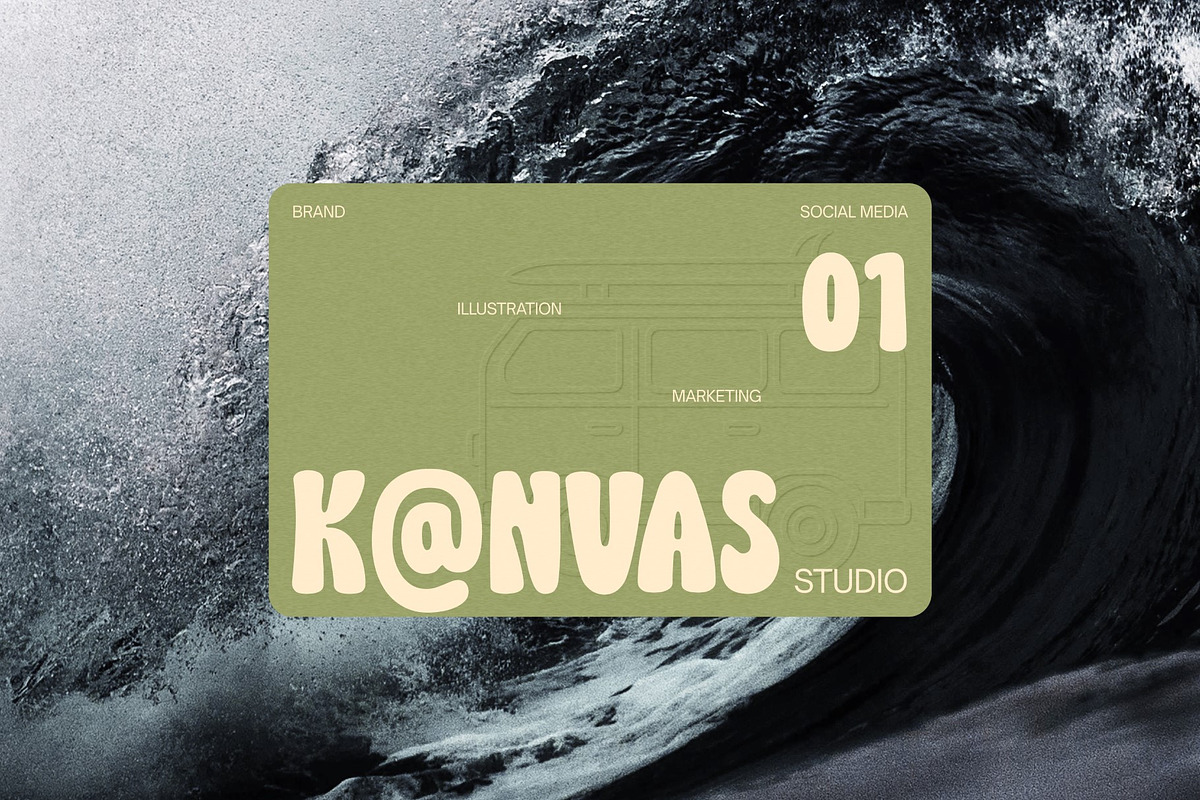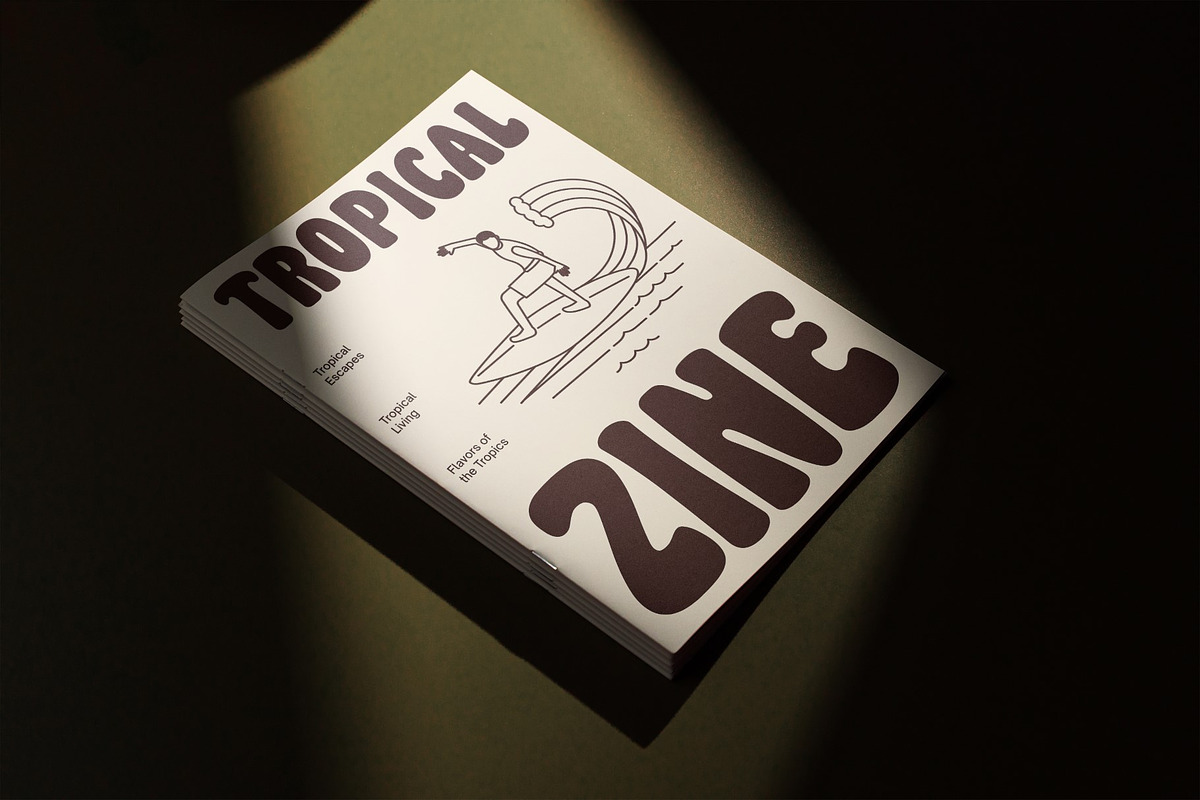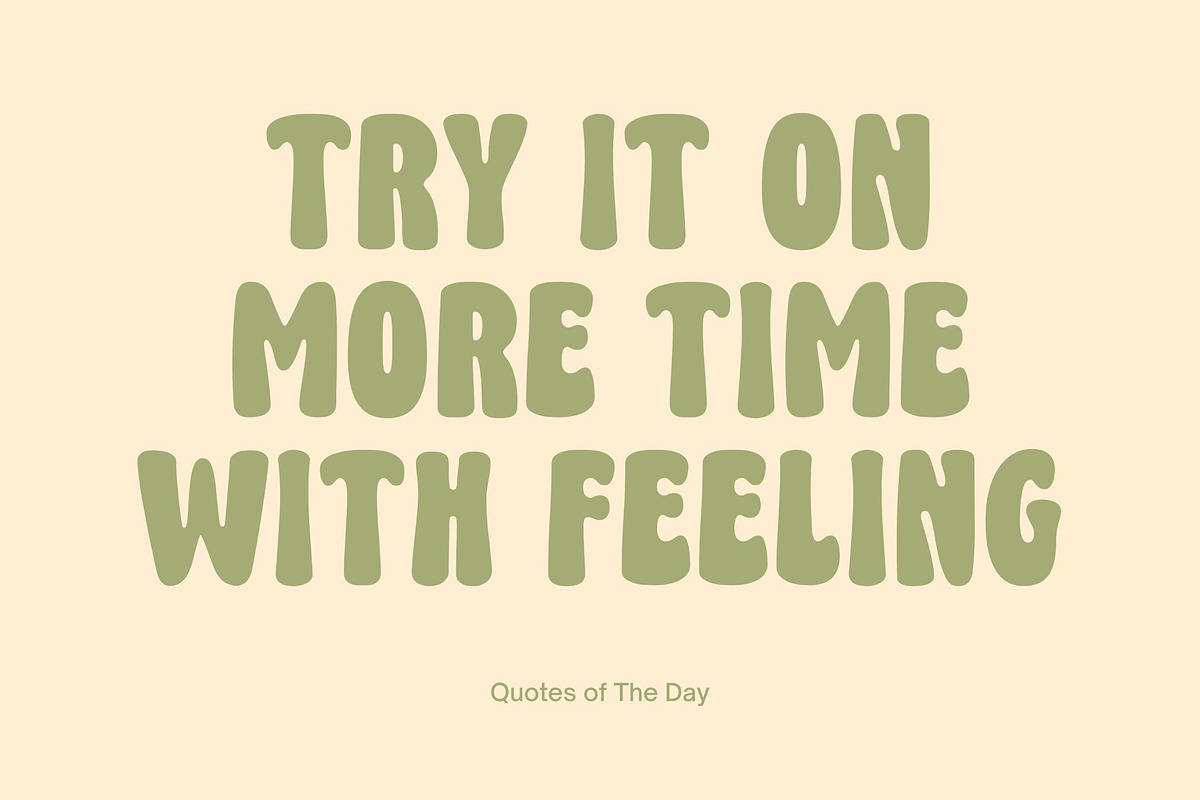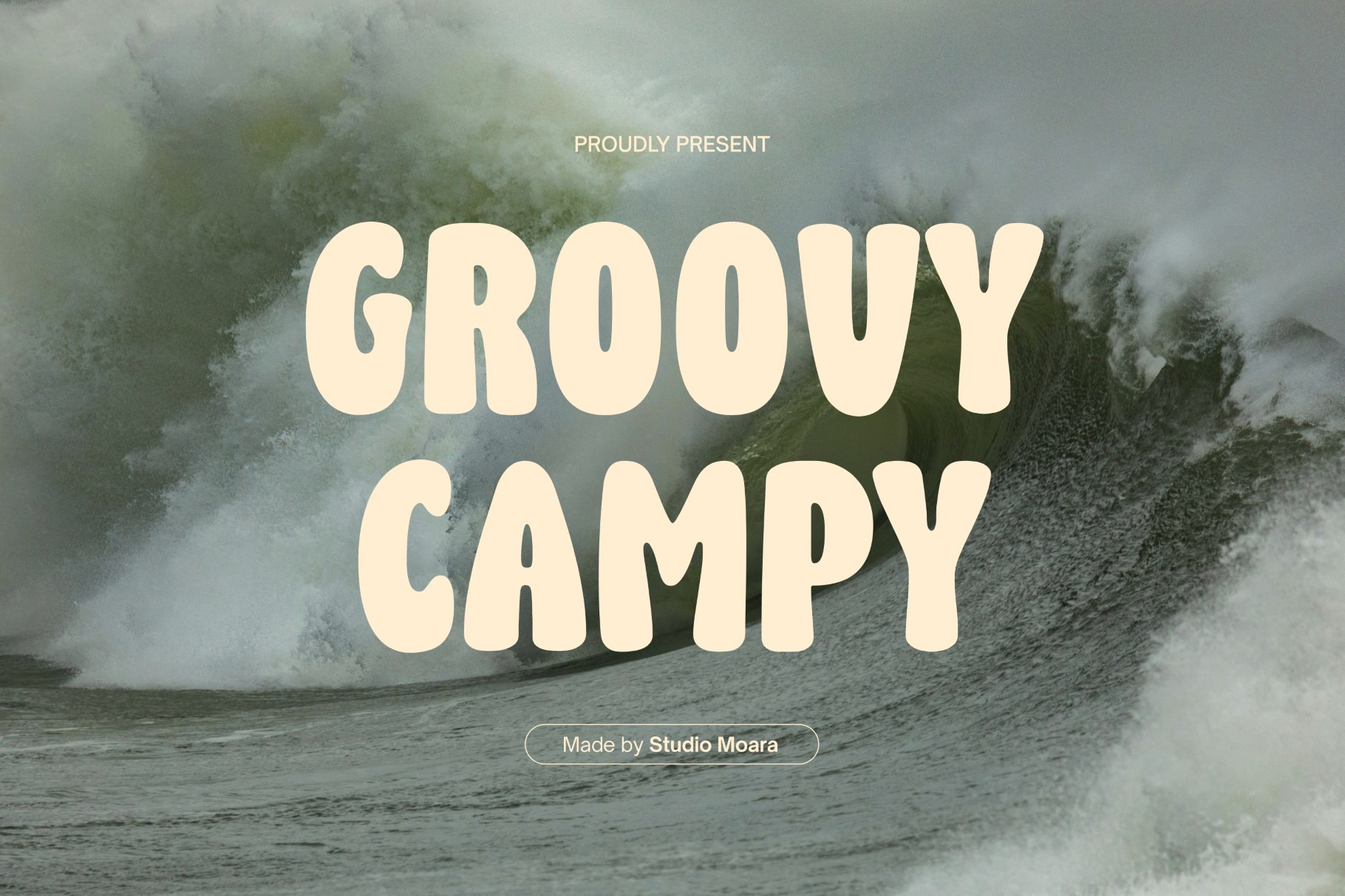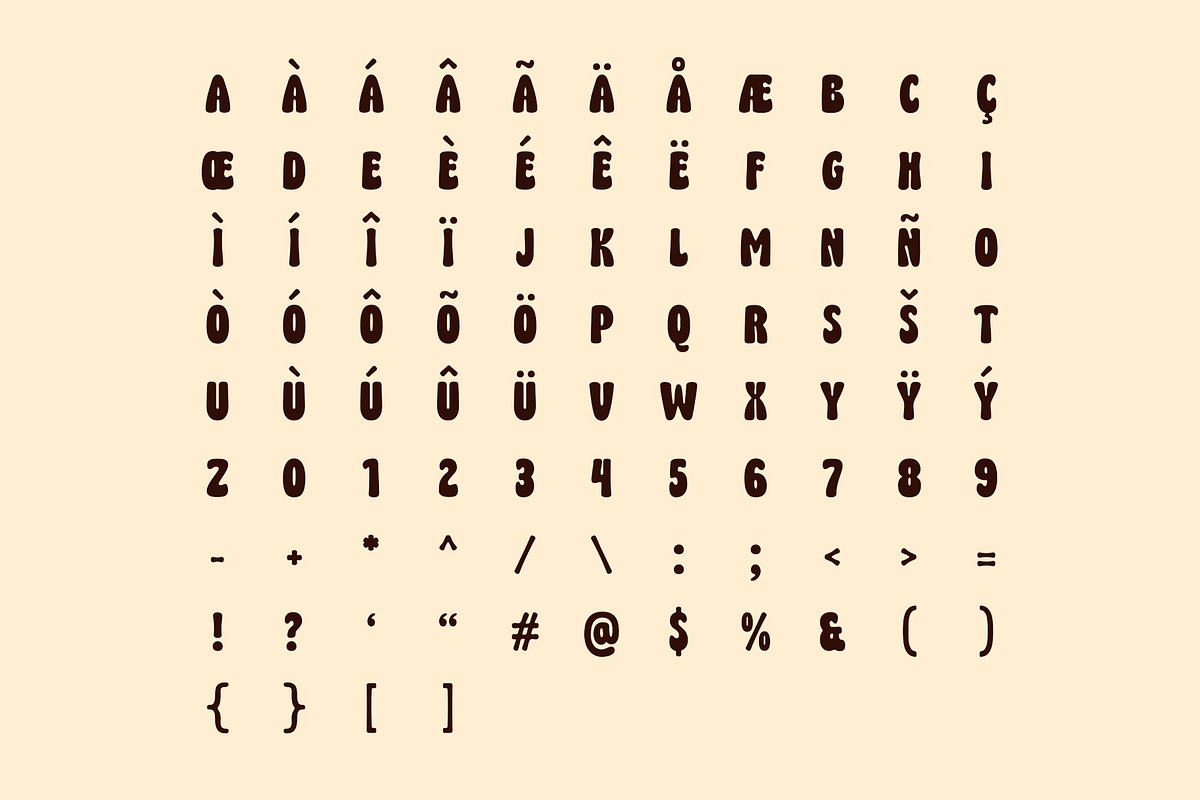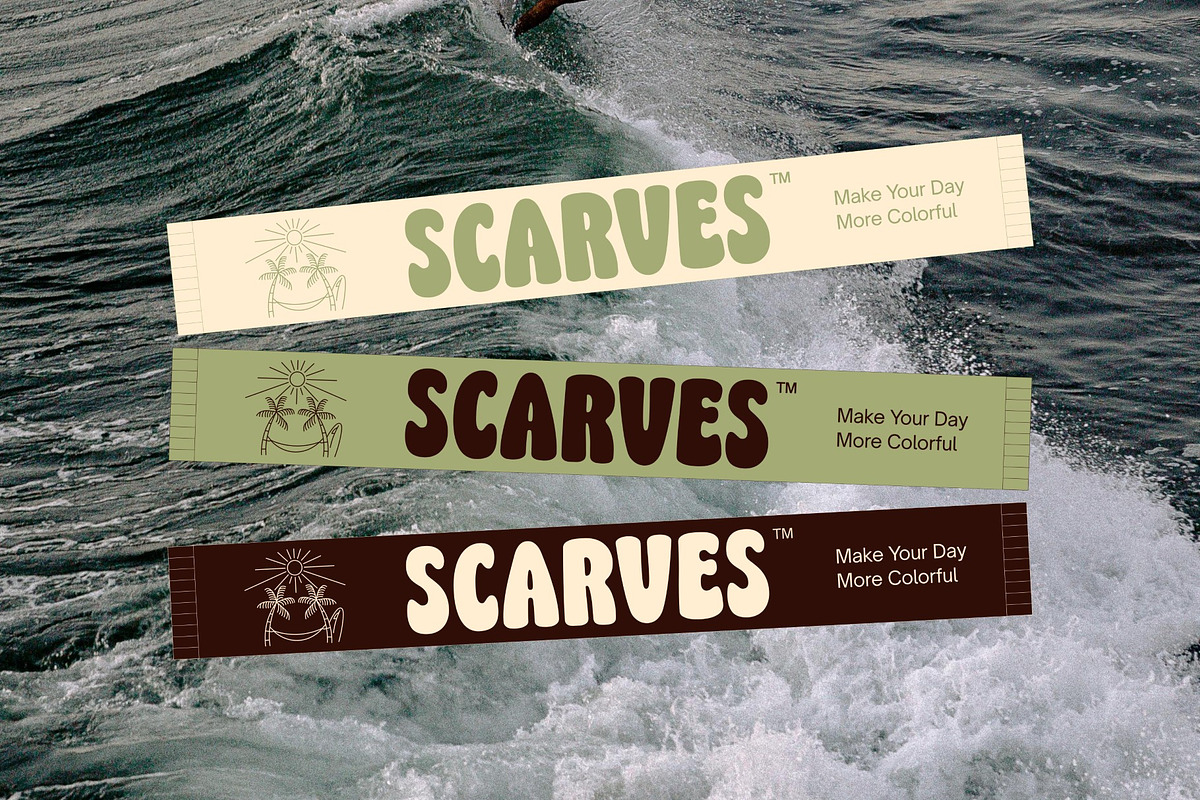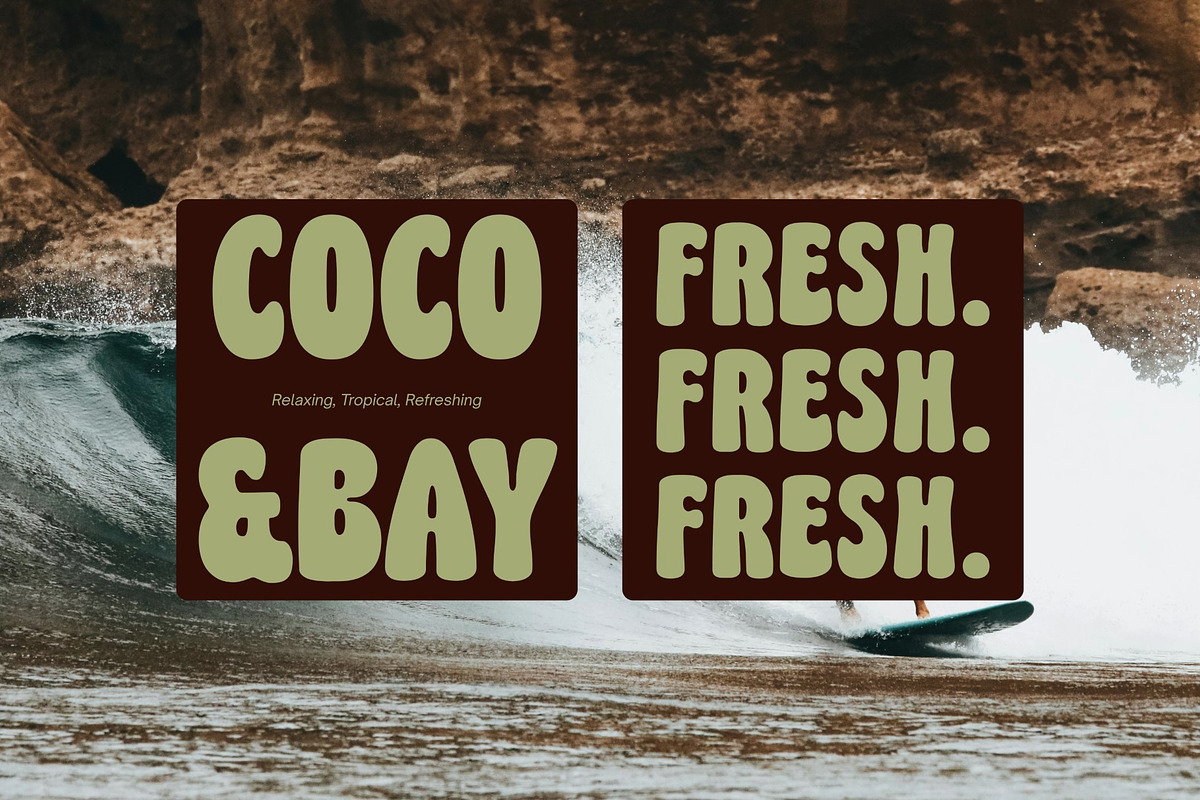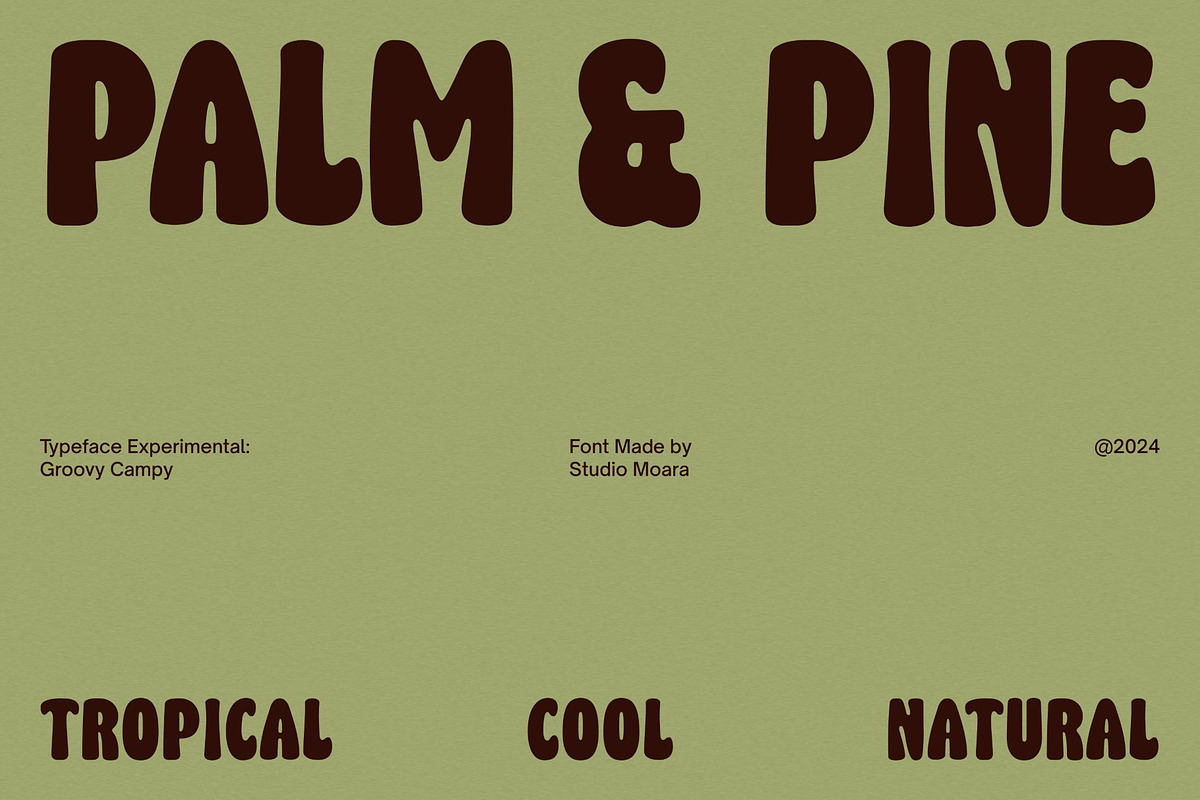
Groovy Campy - Bold Retro Fonts
Groovy Campy - Bold Retro Fonts is a playful, nostalgic typeface inspired by vintage design. With bold, rounded characters, it’s perfect for logos, posters, branding, or social media. Groovy Campy adds a fun, laid-back vibe to any project, seamlessly blending retro aesthetics with modern creativity. Ideal for designers seeking standout typography.